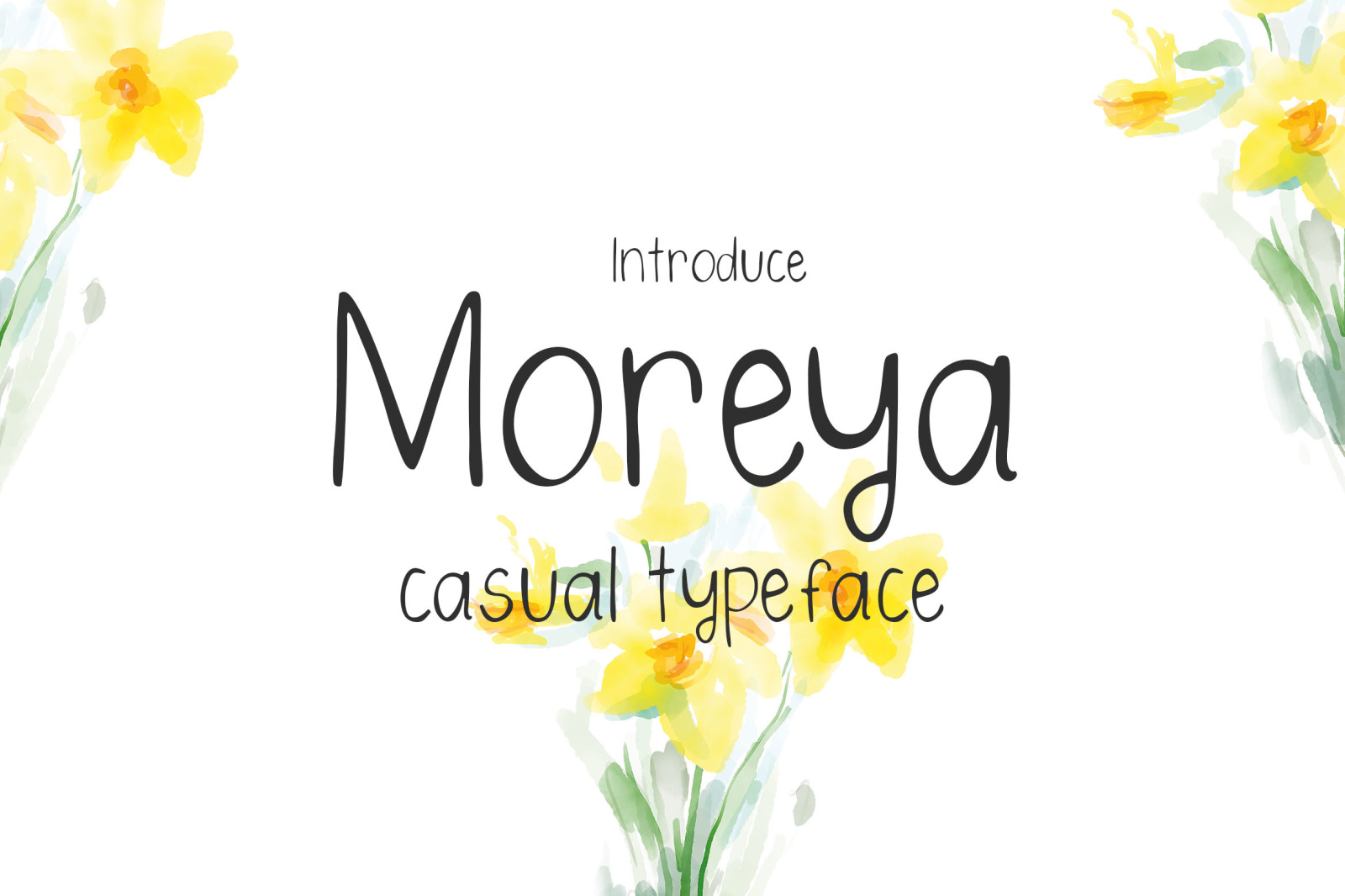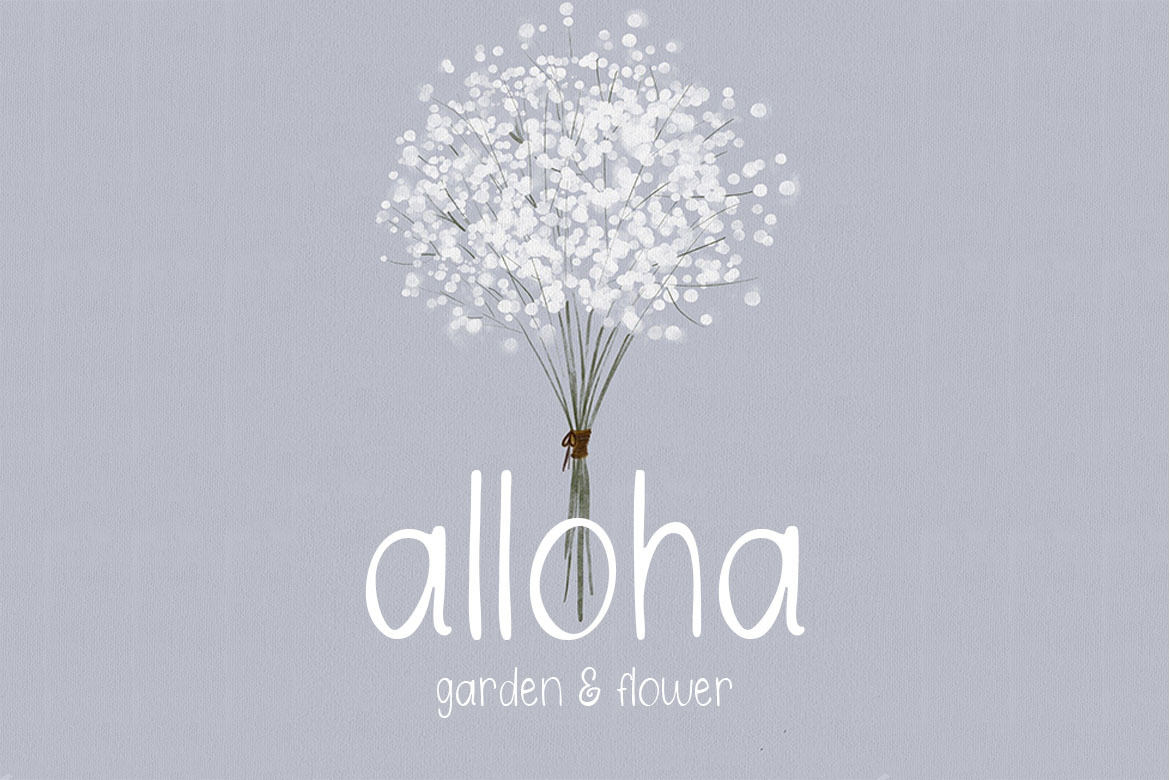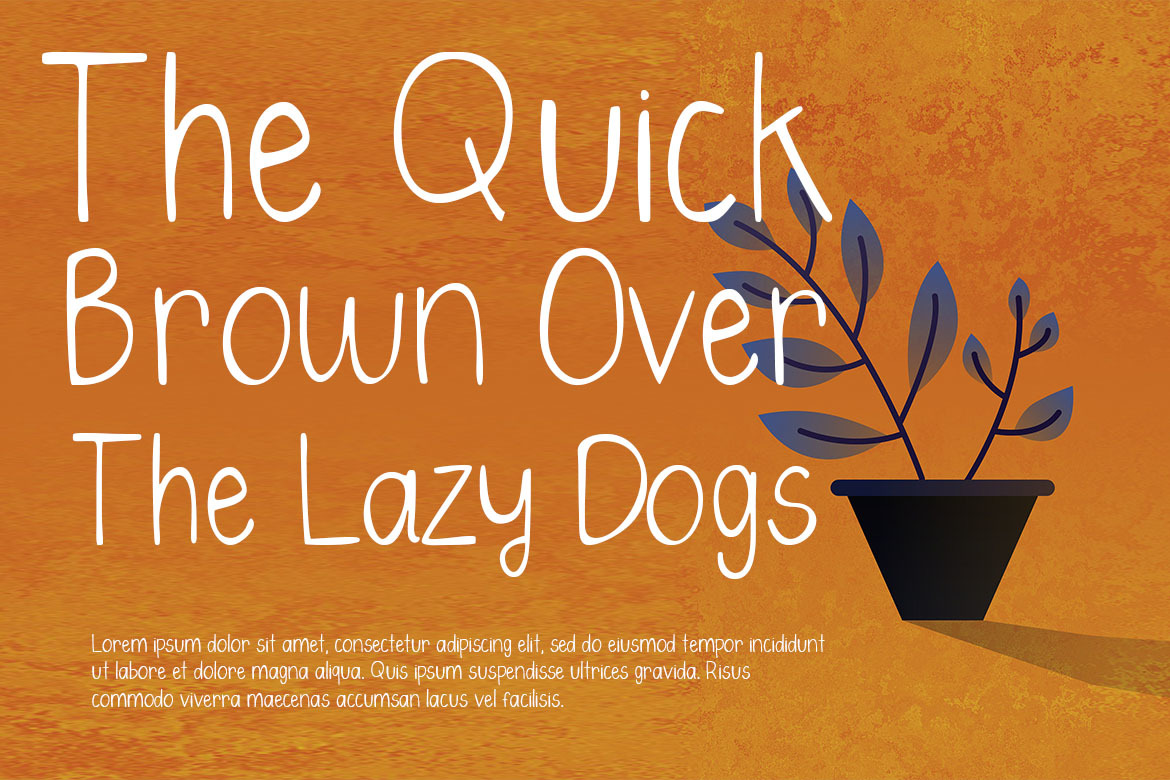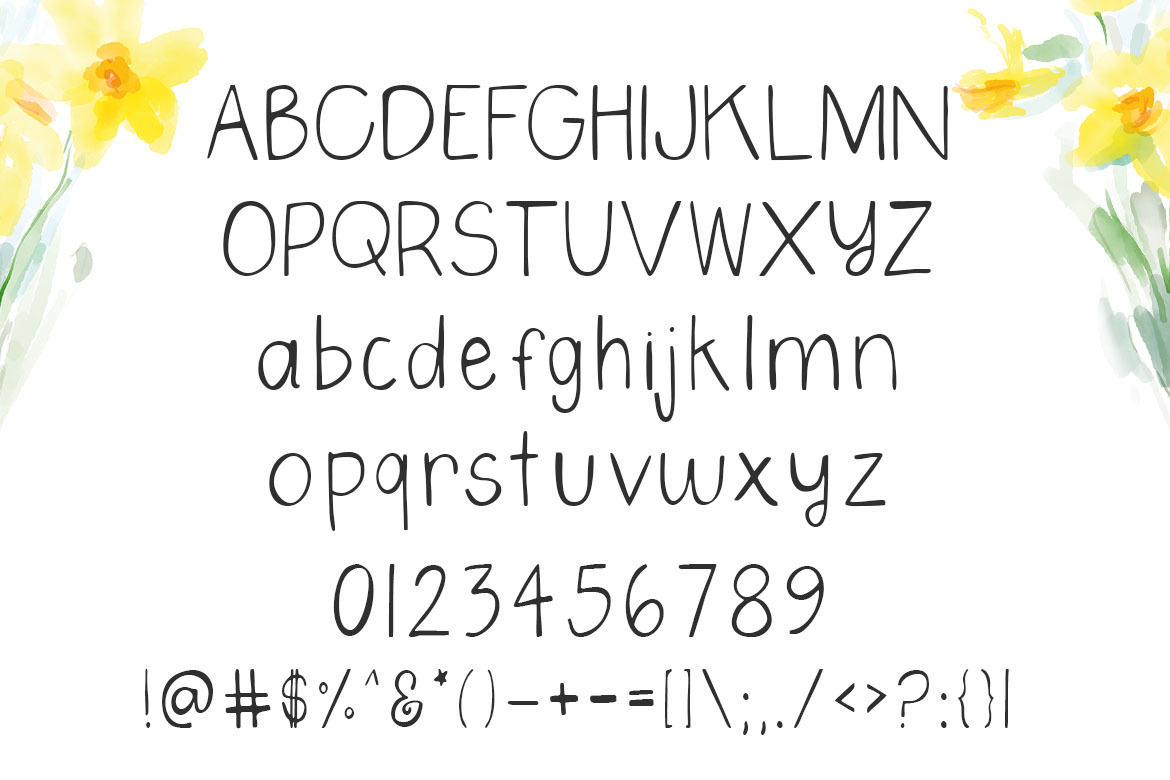
Moreya - Casual Typeface
Moreya is a simple and casual font. This minimalist and clean font can easily become your favorite. It can be used for books, magazines, social media posts, invitations, and so much more! So add this to your creations and take your designs to the next level!